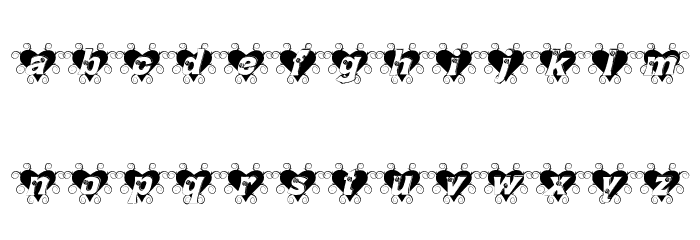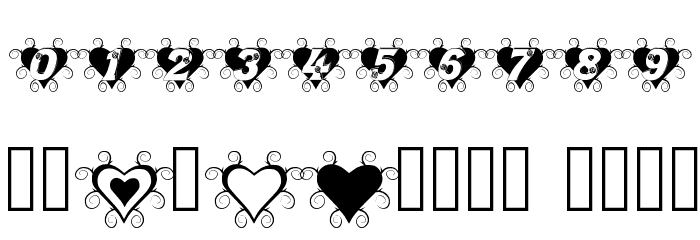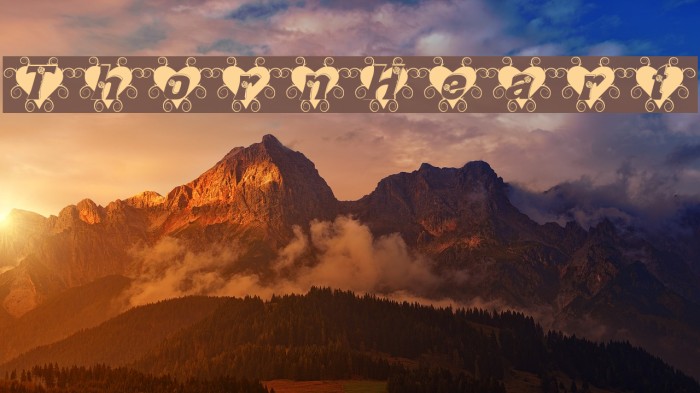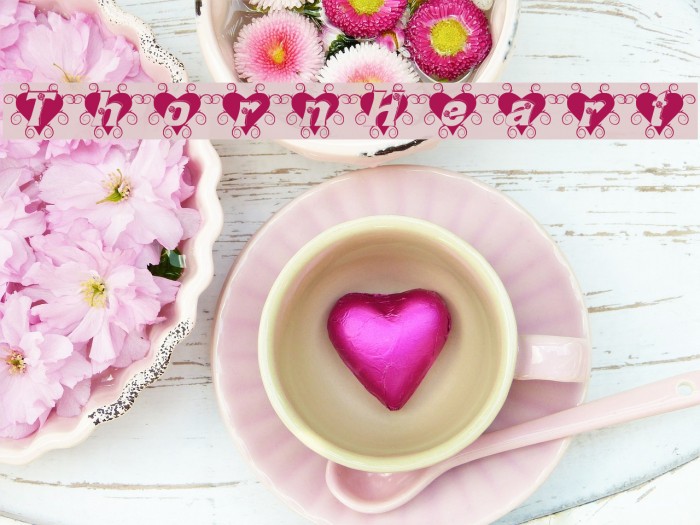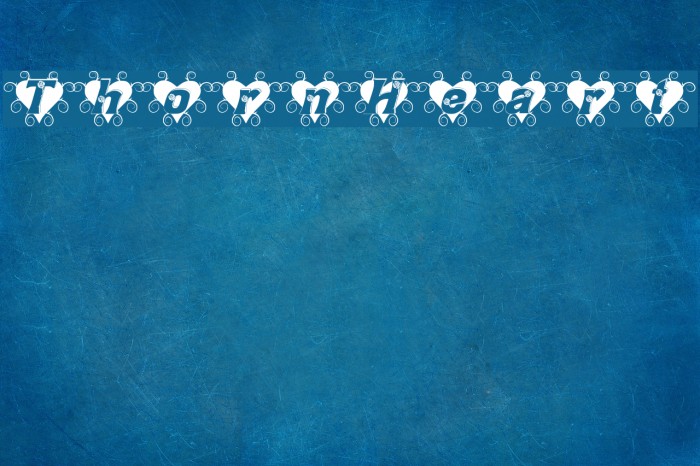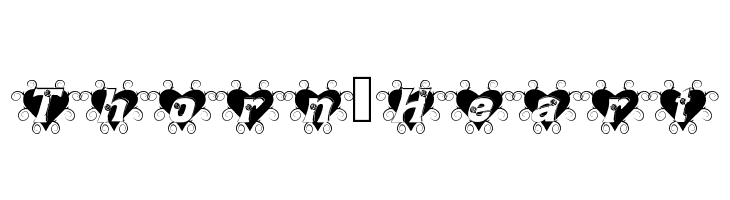
Thorn_Heart Font
This font features a unique decorative style with each character encased in a heart-shaped design. The letters and numbers are bold and slightly italicized, giving them a dynamic appearance. The heart motif is consistent across all characters, adding a whimsical and romantic touch. The font is highly stylized, making it suitable for creative and playful projects. The characters are evenly spaced within their heart frames, ensuring readability while maintaining the decorative theme. The overall design is eye-catching and distinctive, perfect for projects that require a touch of elegance and charm.
A decorative font with bold, italicized characters encased in heart shapes.
- Proposed Projects: Ideal for wedding invitations, Valentine's Day cards, romantic-themed posters, and playful branding.
- Use Case: Logos, Headlines, Invitations